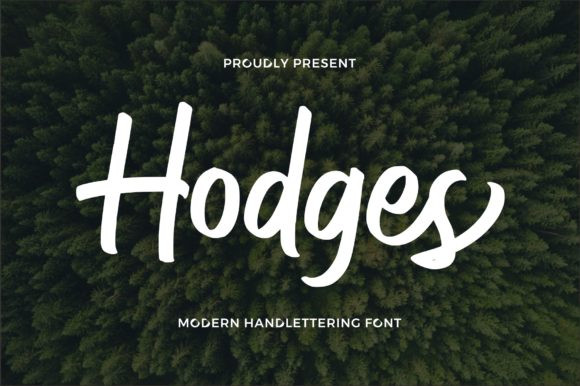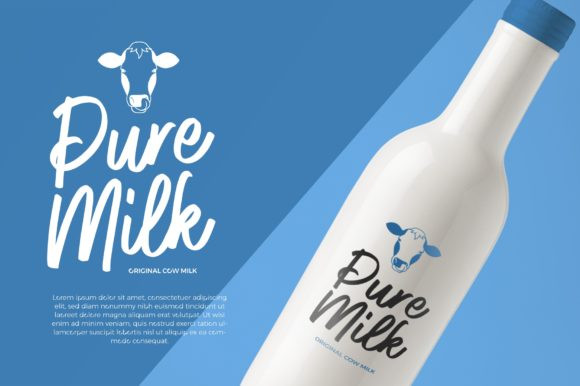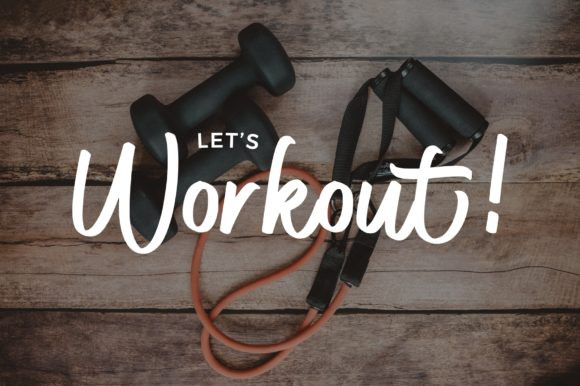
Hodges Font
Hodges is a beautiful handwritten font, created with the help of a brush pen. Fall in love with its incredibly versatile style and use it to create gorgeous wedding invitations, beautiful stationary art, eye-catching social media posts, and much more!